When it comes to writing code documentation, technical specifications, or sharing code snippets in Microsoft Word, choosing the right font can make all the difference.
A good font is the differentiating factor between a readable, professional-looking content and a confusing mess.
While many developers swear by specialized coding fonts like Fira Code or JetBrains Mono, not everyone has the luxury of installing custom fonts, especially in corporate environments with restricted permissions.
The good news is that Microsoft Word comes equipped with several excellent monospaced fonts that are perfect for displaying code.
These built-in options offer the essential characteristics every coding font needs: clear character distinction, proper spacing, and excellent readability.
Let’s dive in.
1. Consolas
Consolas stands out as the crown jewel of Microsoft’s built-in coding fonts and is widely regarded as one of the best programming fonts ever created.
Developed specifically for programmers and technical writers, Consolas features exceptional character clarity with carefully designed letterforms that eliminate common confusion points in code.
The font’s sophisticated hinting ensures that characters remain crisp and readable at various sizes, while its balanced spacing prevents code from appearing cramped or overly stretched.
What makes Consolas particularly special is its attention to programming-specific details: the zero has a distinctive slash to differentiate it from the letter O, quotation marks are clearly distinguishable, and brackets maintain perfect alignment.
The font’s slightly condensed design allows more code to fit on each line without sacrificing readability, making it ideal for both short code snippets and longer programming examples in your Word documents.
2. Courier New
As a digital descendant of the classic typewriter font, Courier New brings a sense of nostalgia and reliability to coding environments.
This monospaced font has been a staple in programming circles for decades, and its inclusion in Microsoft Word ensures universal compatibility across different systems and platforms.
Courier New’s robust character design features thick, bold strokes that remain highly legible even when printed on lower-quality printers or viewed on older monitors.
The font’s traditional appearance makes it particularly suitable for formal documentation, technical specifications, and academic papers where a conservative, professional look is desired.
While it may appear somewhat heavy compared to more modern alternatives, Courier New’s time-tested design ensures that every character is instantly recognizable.
This makes it an excellent choice for code that needs to be absolutely clear and unambiguous.
3. Lucida Console
Lucida Console represents Microsoft’s answer to the need for a clean, modern monospaced font that works exceptionally well in digital environments.
Designed with screen display in mind, this font features carefully optimized character spacing and excellent anti-aliasing properties that make code appear sharp and professional in Word documents.
The font’s letterforms strike an ideal balance between being distinctive enough to prevent character confusion while maintaining a cohesive, unified appearance that doesn’t distract from the code’s content.
Lucida Console’s moderate weight and spacing make it particularly effective for longer code blocks and technical documentation where sustained readability is crucial.
The font’s clean, geometric design gives code a modern, professional appearance that works well in both casual documentation and formal technical presentations.
4. Cascadia Code
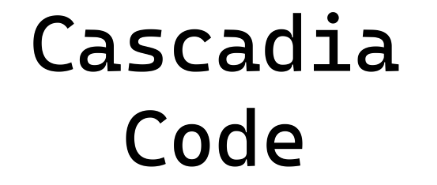
Although a relatively recent addition to Microsoft’s font collection, Cascadia Code has quickly gained popularity among developers for its exceptional design and programming-focused features.
This font was specifically created for terminal applications and code editors, bringing professional-grade typography to Microsoft Word users.
Cascadia Code features carefully crafted ligatures and character spacing that enhance code readability while maintaining the precise alignment essential for programming content.
The font’s contemporary design includes subtle curves and optimized letter spacing that reduce eye strain during extended reading sessions.
What sets Cascadia Code apart is its attention to modern programming languages and symbols, ensuring that contemporary code syntax appears clear and well-formatted in your Word documents.
Conclusion
Selecting the right coding font for your Microsoft Word documents can significantly impact the readability, professionalism, and overall effectiveness of your technical content.
While Consolas often emerges as the top choice for its exceptional design and programming-specific optimizations, each font in this collection offers unique advantages that may better suit specific projects or personal preferences.